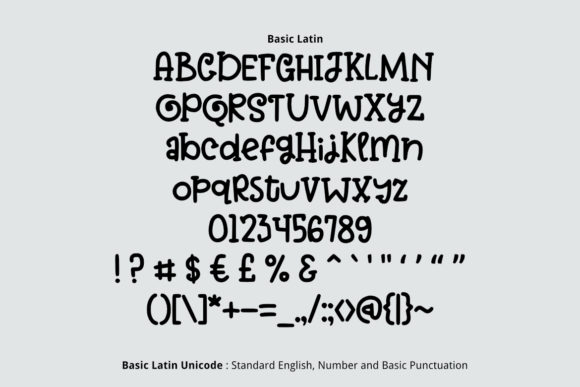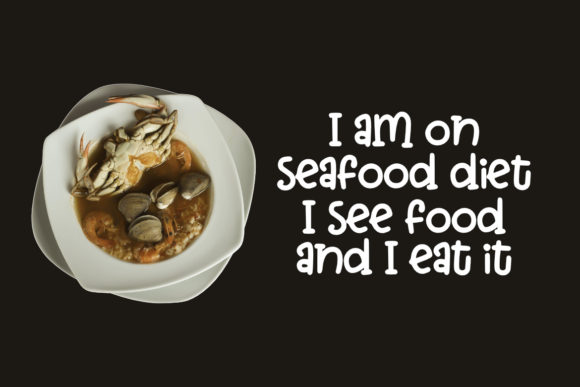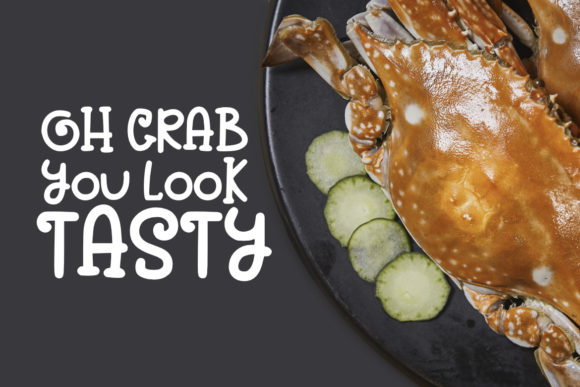
Introduction to Big Crab Font
Big Crab is a bold, quirky and whimsical handwritten font.
Unique and interesting, this font will become your top choice in no time .
Key Features of Big Crab Font
Why Choose Big Crab Font?
Big Crab Font offers exceptional quality and versatility, making it a valuable addition to your design toolkit. Whether you’re creating for personal projects or commercial use, Big Crab Font delivers professional results.